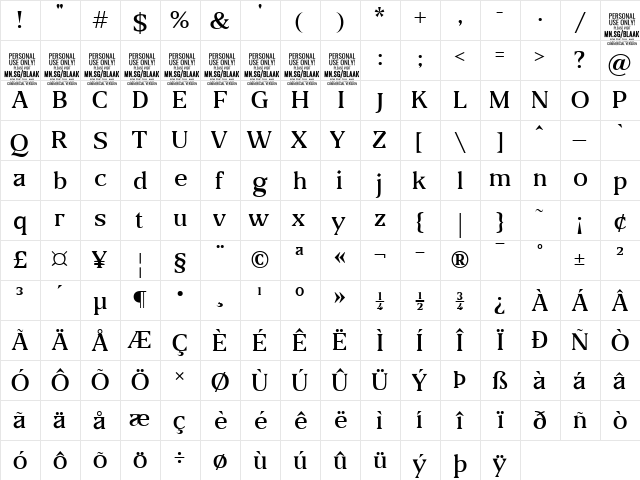
Blaak Light PERSONAL USE Regular
| Foundry | Mans Greback |
| Designer | Unidaas & Mans Greback |
Design Context for Blaak Light PERSONAL USE Typeface
Blaak Light PERSONAL USE takes a measured approach to typography — its balanced proportions and neutral character make it a reliable workhorse for both digital and print work. The delicate stroke weight brings airiness and refinement to layouts.